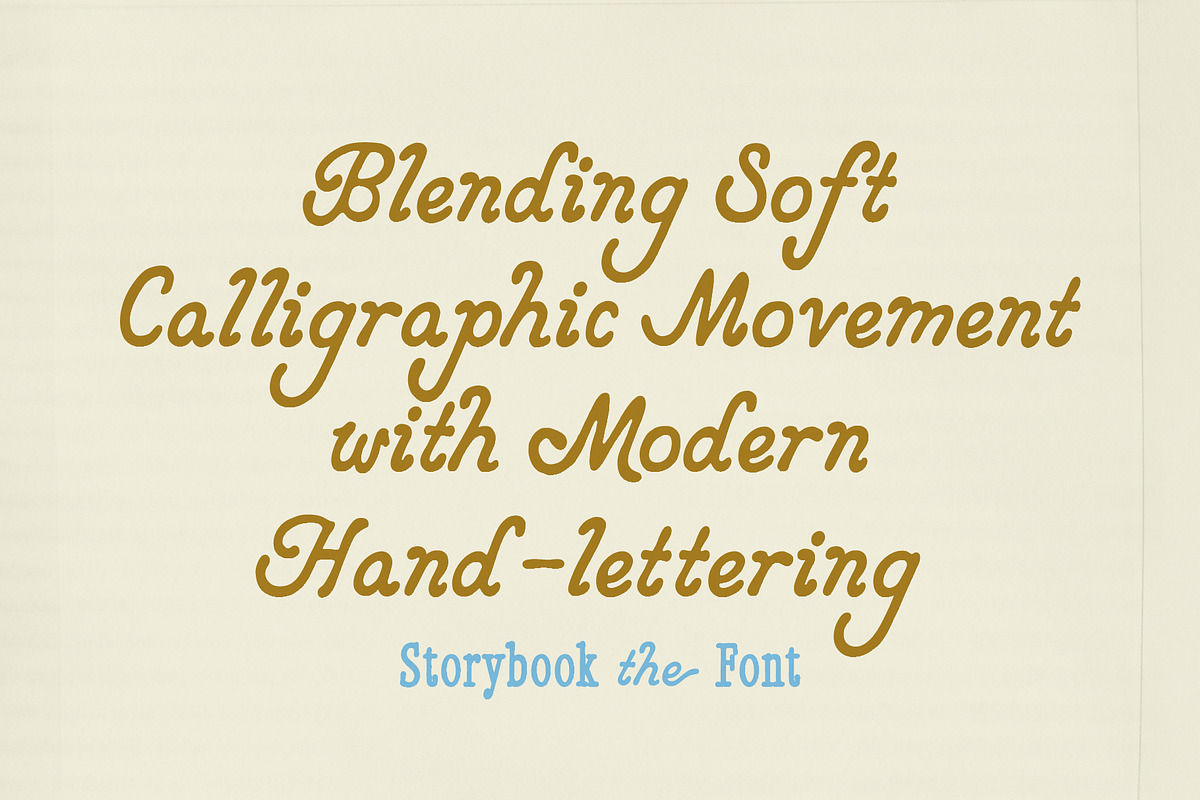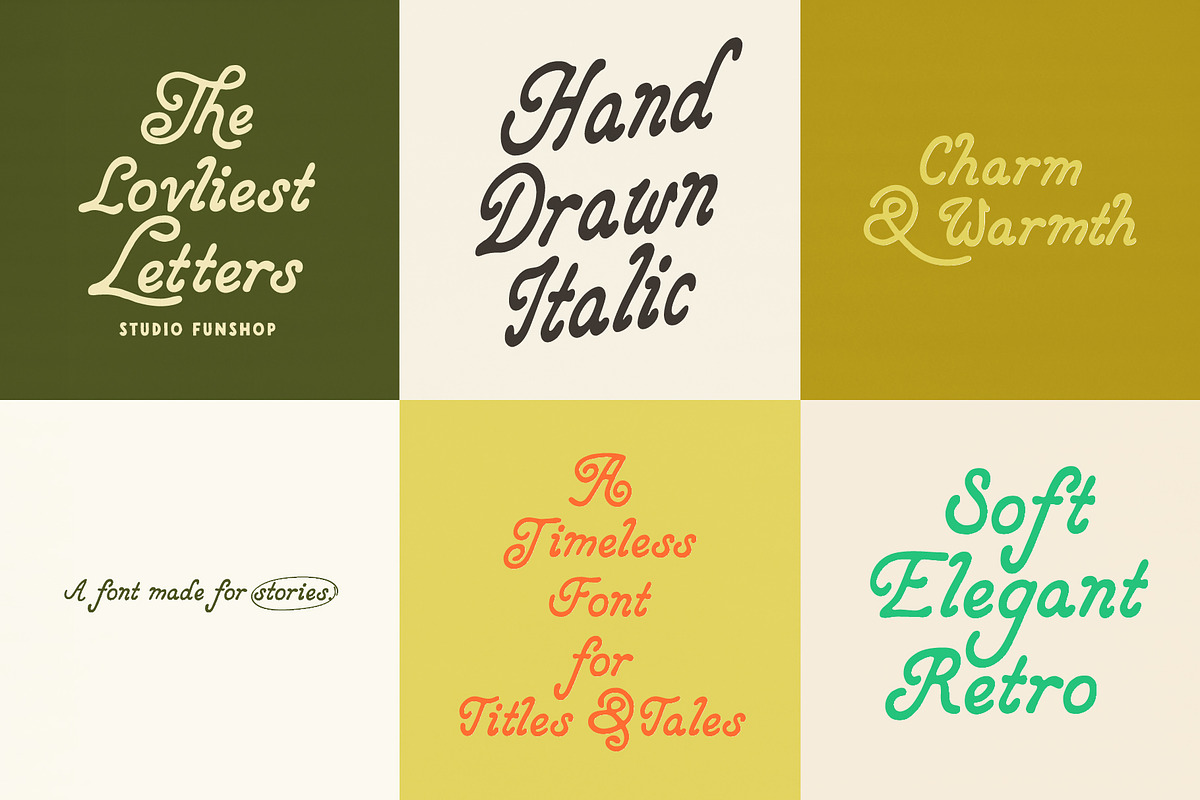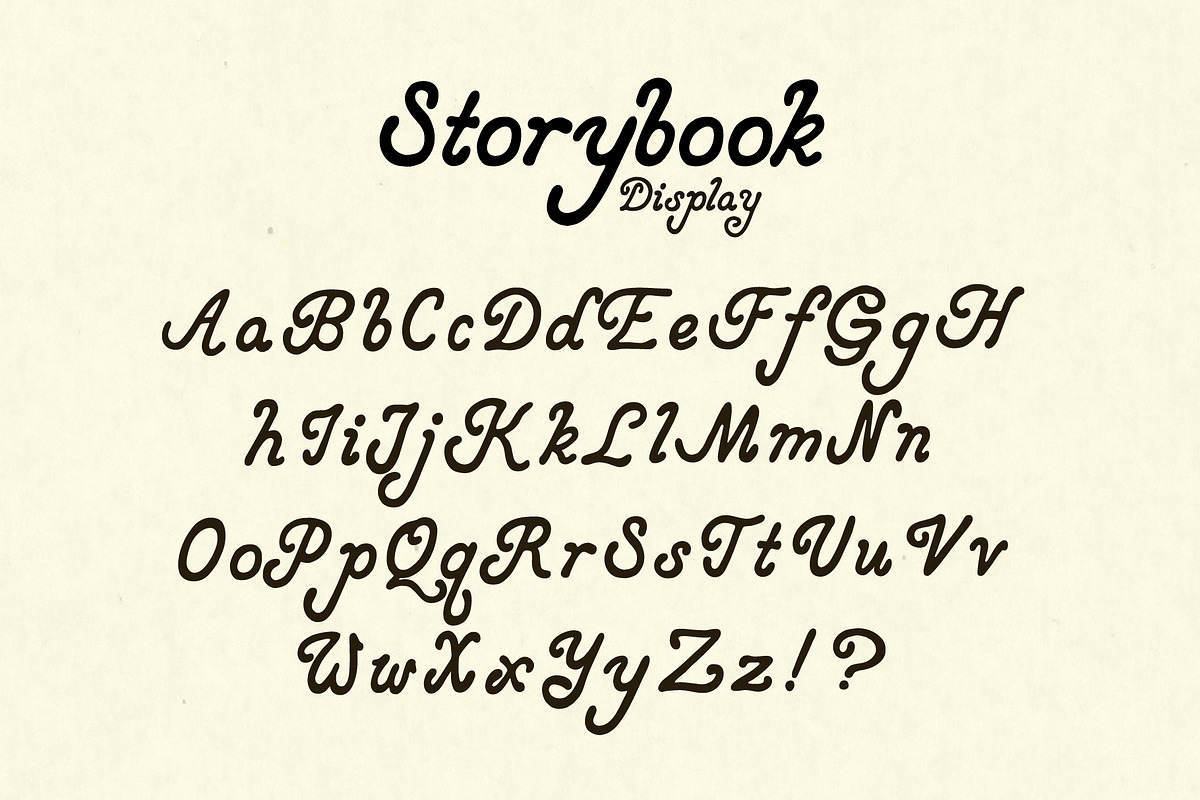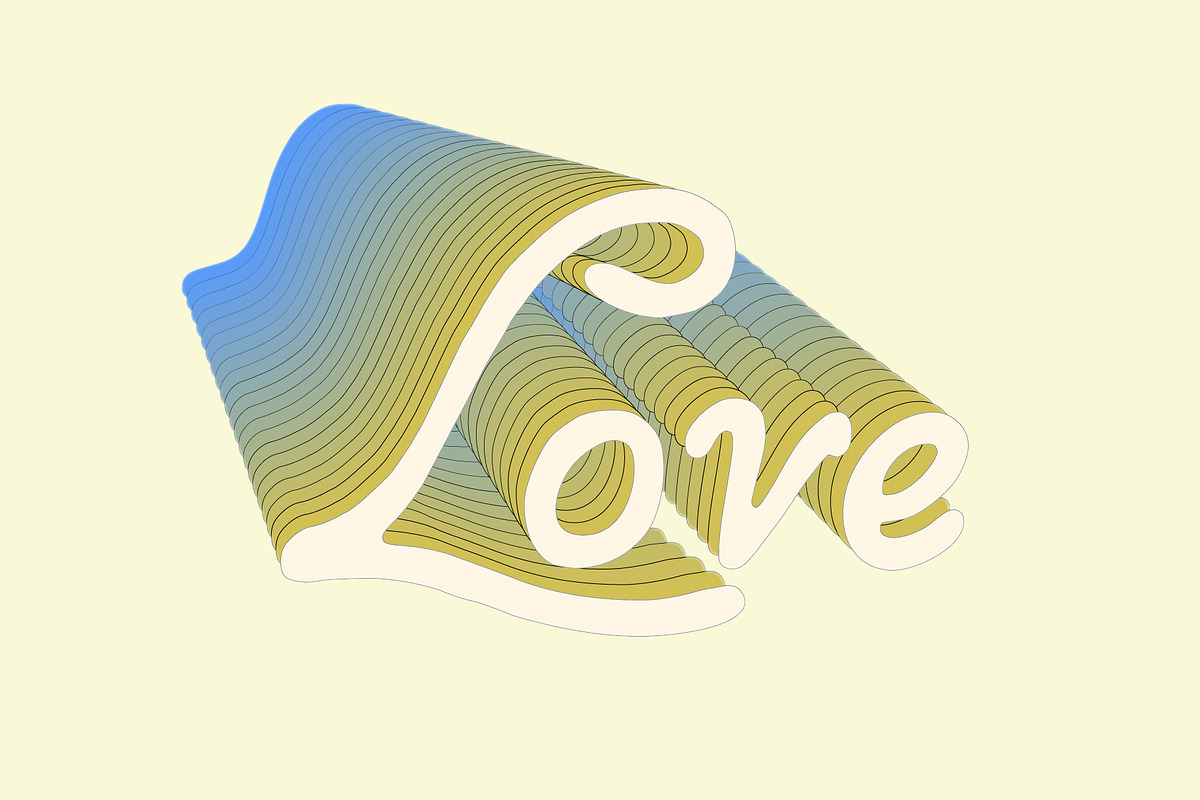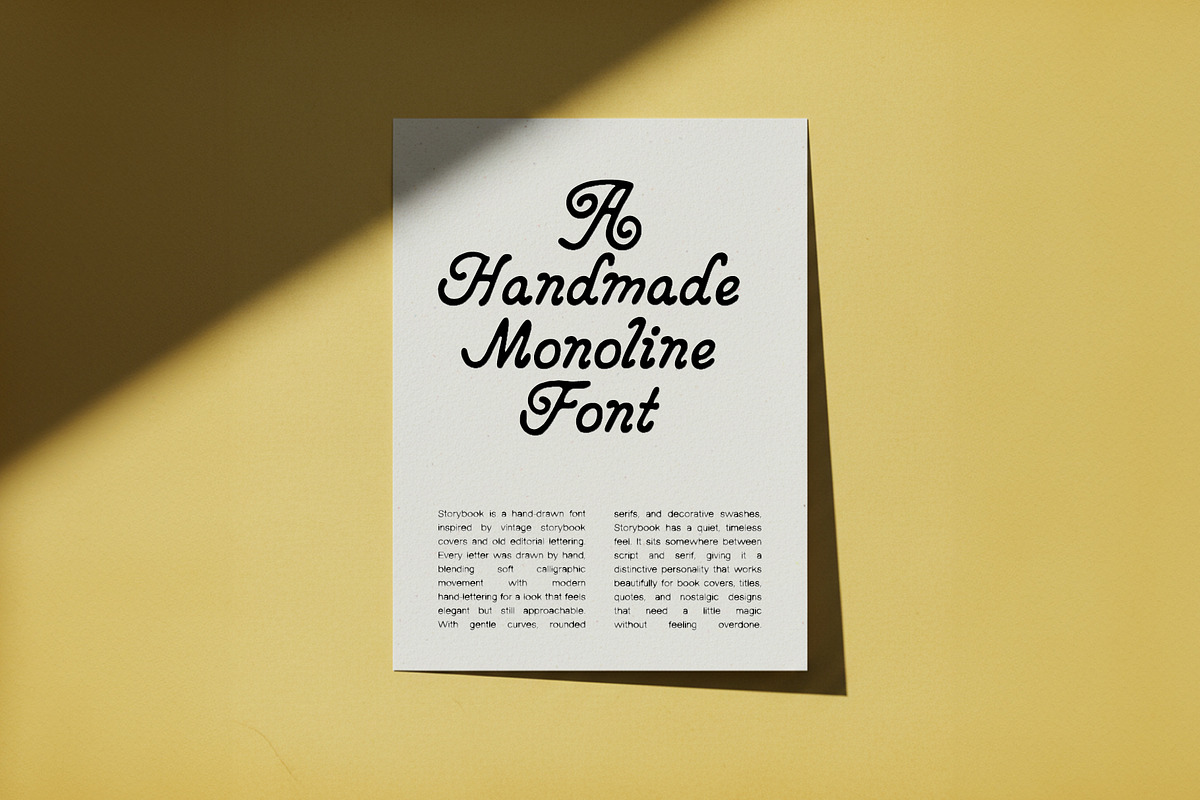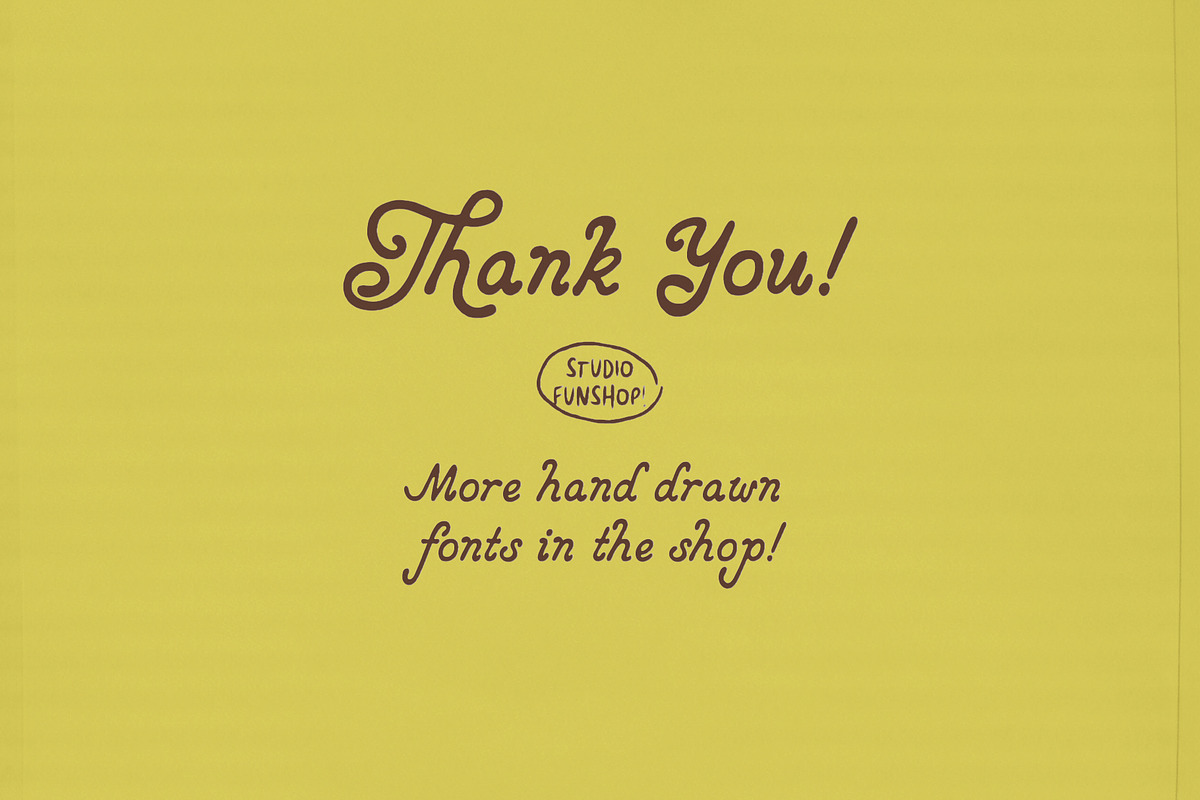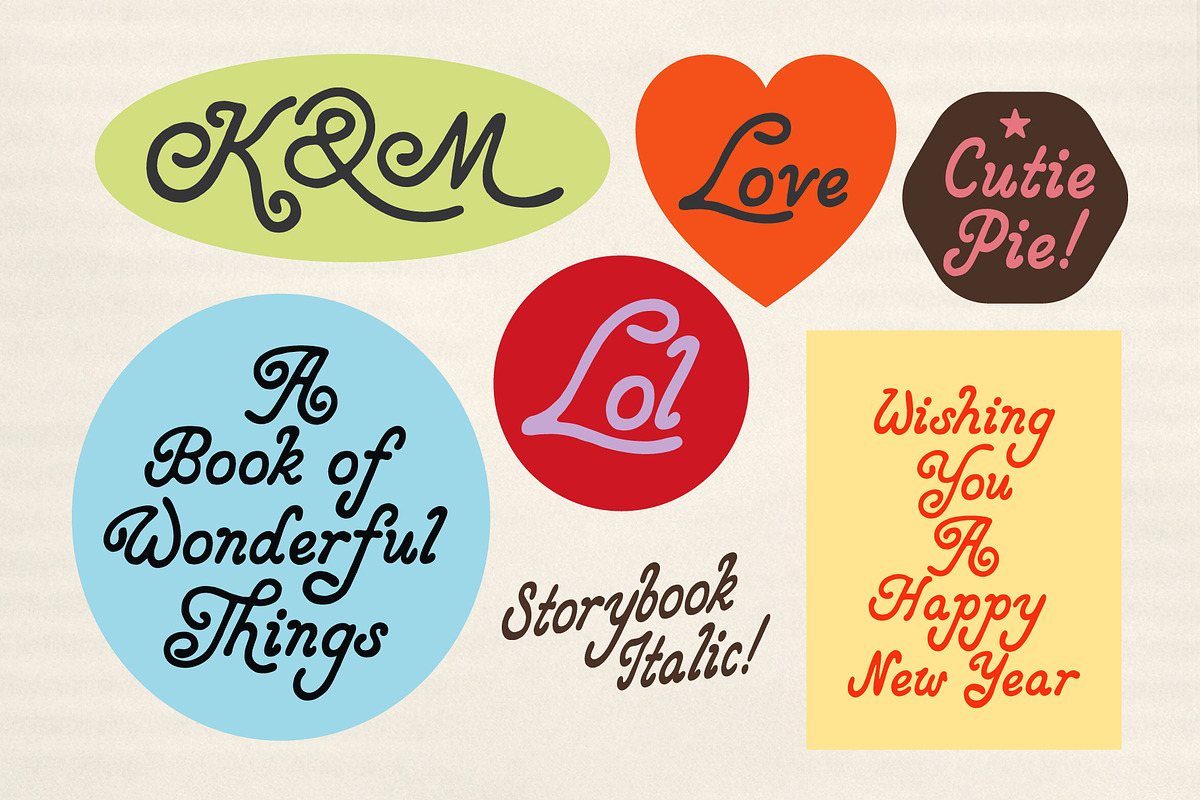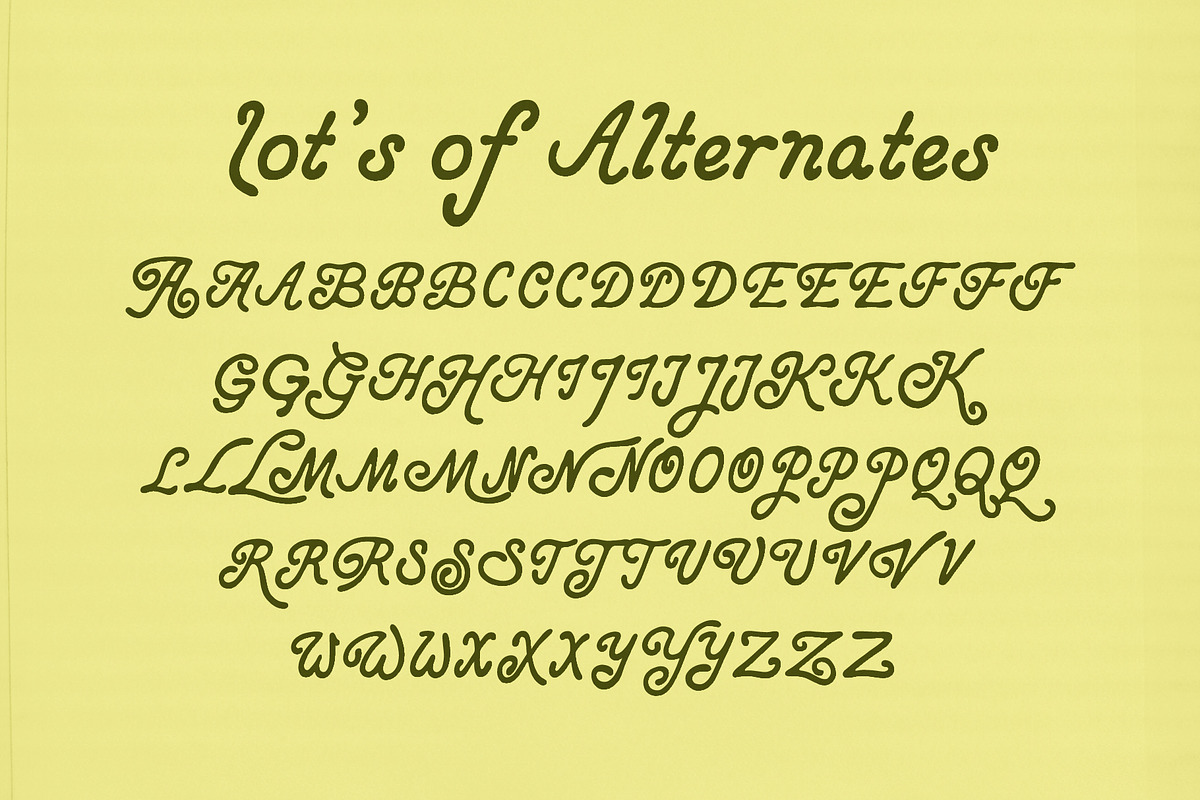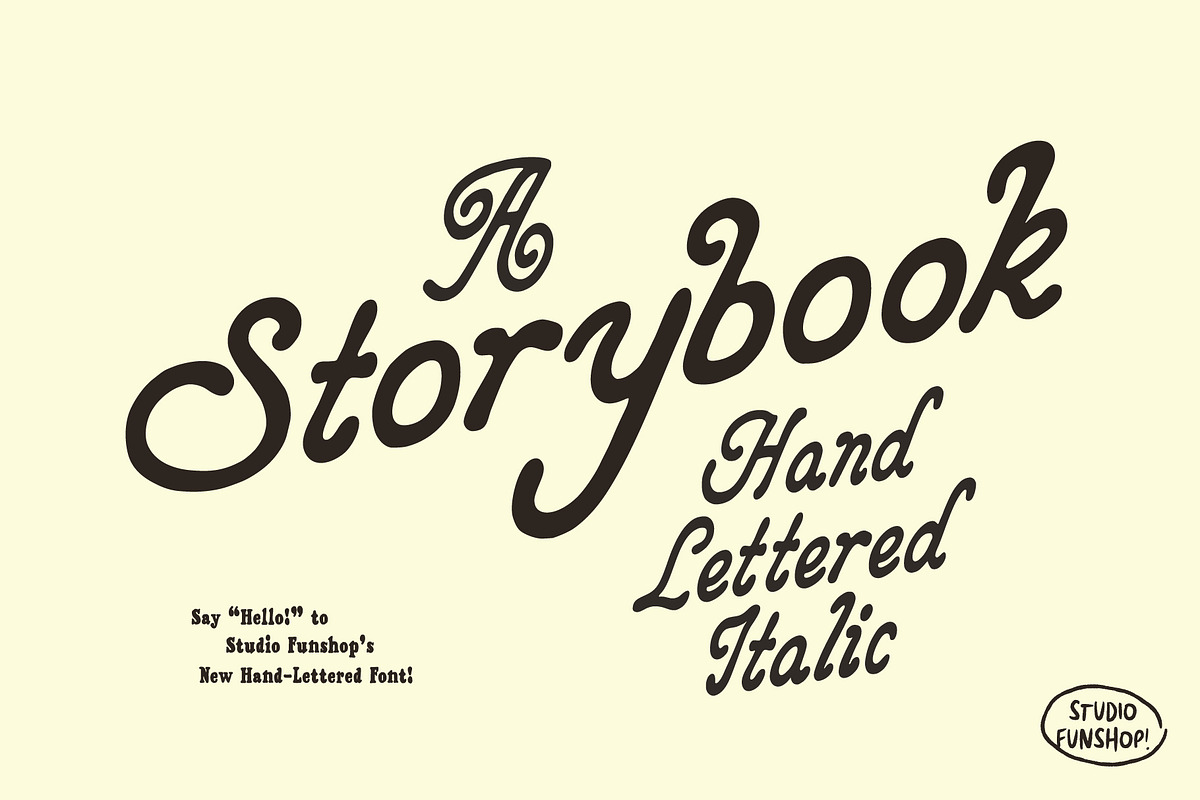
Storybook - Retro Hand-drawn Italic
Storybook is a hand-drawn font inspired by vintage storybook covers and old editorial lettering. Every letter was drawn by hand, blending soft calligraphic movement with modern hand-lettering for a look that feels elegant but still approachable.
With gentle curves and rounded serifs, Storybook has a timeless feel. It fits somewhere between script and serif, giving it a distinctive personality that works beautifully for book covers, titles, quotes, and nostalgic designs that need a little magic without feeling overdone.
Storybook is perfect for branding, packaging, and any project that calls for a warm, vintage-inspired handwritten touch.
Uppercase & Lowercase A–Z
Numbers, Symbols & Punctuation
Decorative Alternates